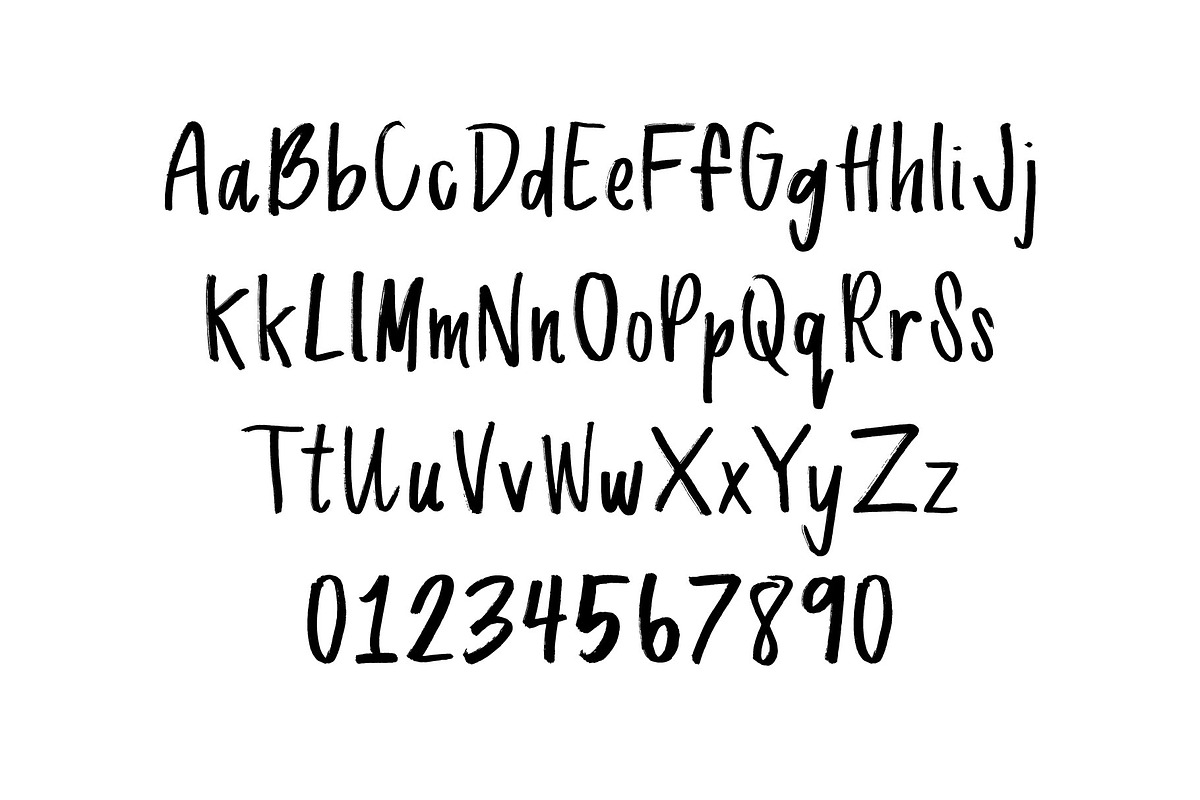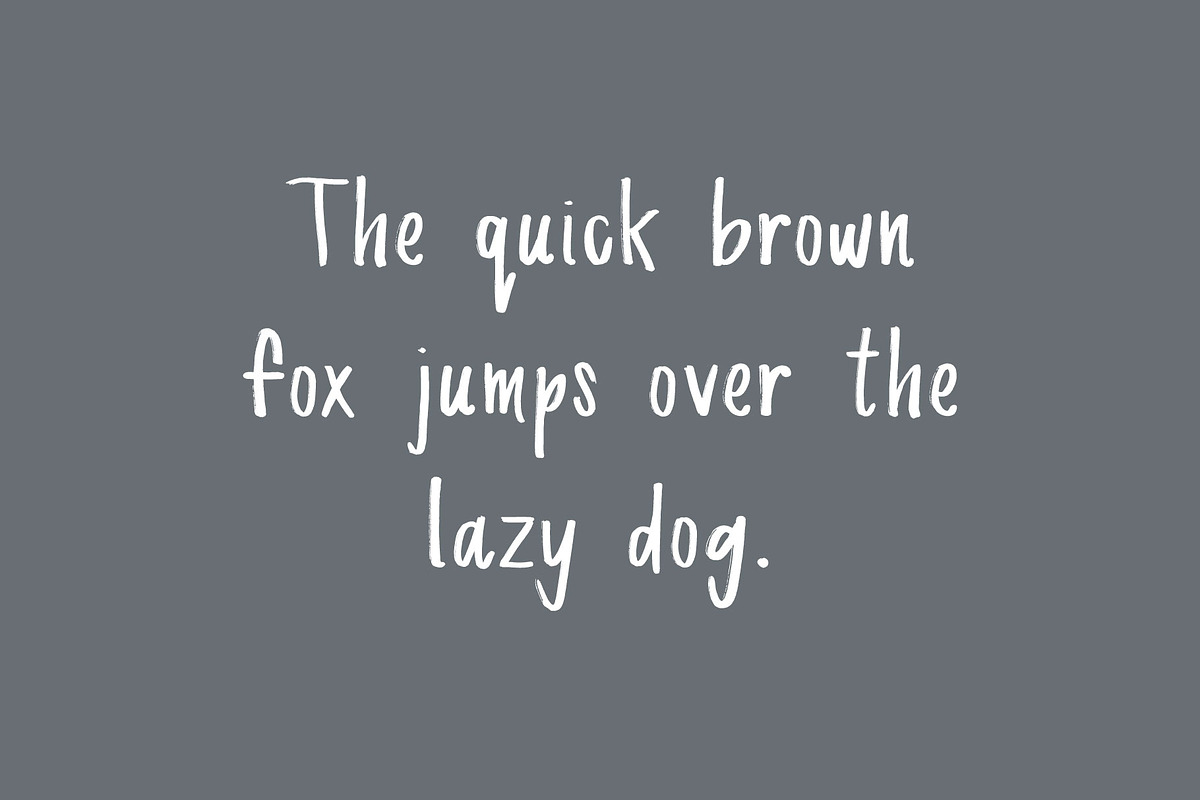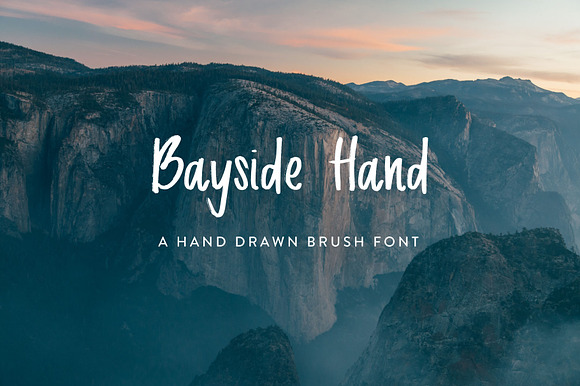
Bayside Hand - Hand Drawn Font
Keep it light like a bayside breeze with our latest hand-drawn script font, Bayside Hand. Ideal for creating fun, relaxed overlays, note cards, and the like, Bayside Hand has a diverse range of uses for your business or personal design needs.
Bayside Hand - Hand Drawn Font by La Lune Creative fits naturally into Branding, posters, packaging, typography.